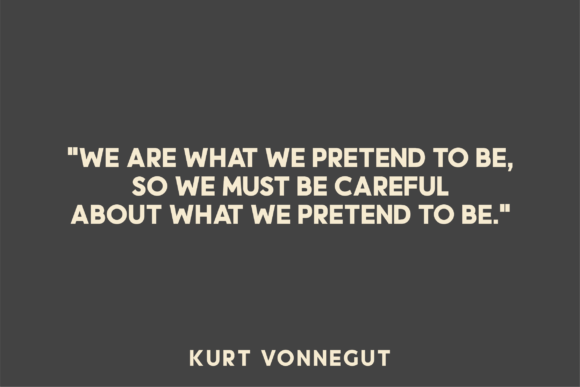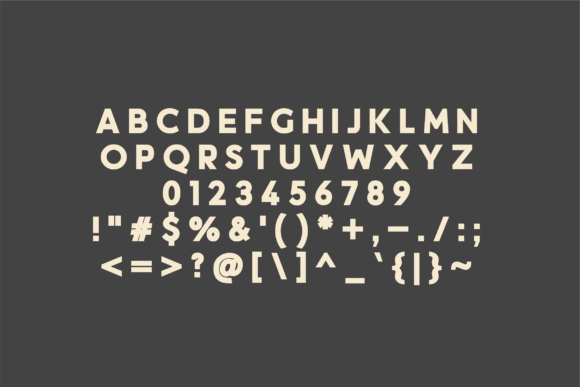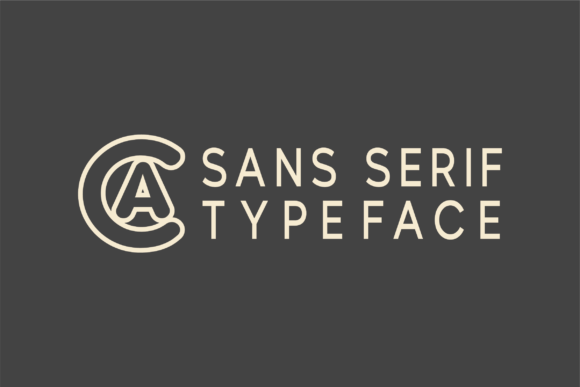
Introduction to Mostculine Font
Have you ever been working on a creative project, pouring your heart and soul into it, only to feel like something’s missing? You’ve tried different fonts, colors, and layouts, but nothing seems to bring your vision to life. That’s where the Mostculine Font comes in – a game-changing design resource that can elevate your most mundane ideas into something truly extraordinary.
As a designer, you’re always on the lookout for high-quality fonts that can add that extra oomph to your work. And trust us, the Mostculine Font is a treasure trove of possibilities. With its transparent background and versatile style, it’s perfect for logos, weddings, invitations, and even print magazines. Plus, the best part? It’s available for free download, making it an invaluable asset for any creative project.
Key Features of Mostculine Font
- Unique, bold, and elegant design perfect for creative projects.
- Designed with a high level of detail, ensuring a high-quality finish in any creative project.
- Perfect for use in logos, branding, and typography, adding a touch of sophistication to any design.
Honest Review: Mostculine Font
As a designer, I’m always on the lookout for high-quality design resources to elevate my creative projects. The Mostculine Font caught my attention with its sleek and modern aesthetic, making it a great addition to any design arsenal. ✨
Here are some of the things that work well with the Mostculine Font:
- Wide range of styles and weights to choose from, making it versatile for various design needs
- High-quality vector format ensures crisp and clear rendering, even on high-resolution displays
- Easy to read and understand, making it perfect for body text or headlines
- Some users may find the font too bold or overpowering, especially on transparent backgrounds
- Limited support for languages other than English, which may be a concern for designers working on multilingual projects
Overall, the Mostculine Font is a solid choice for designers looking for a modern and high-quality font. While it may have some limitations, its versatility and ease of use make it a great addition to any design project. ✨
To maximize the effectiveness of the Mostculine Font, use it in combination with other design elements, such as images and graphics. Experiment with different font sizes and styles to create visual interest.
The Mostculine Font is suitable for a wide range of creative projects, including logos, business cards, brochures, and social media graphics. Its unique design makes it an excellent choice for branding and marketing materials.